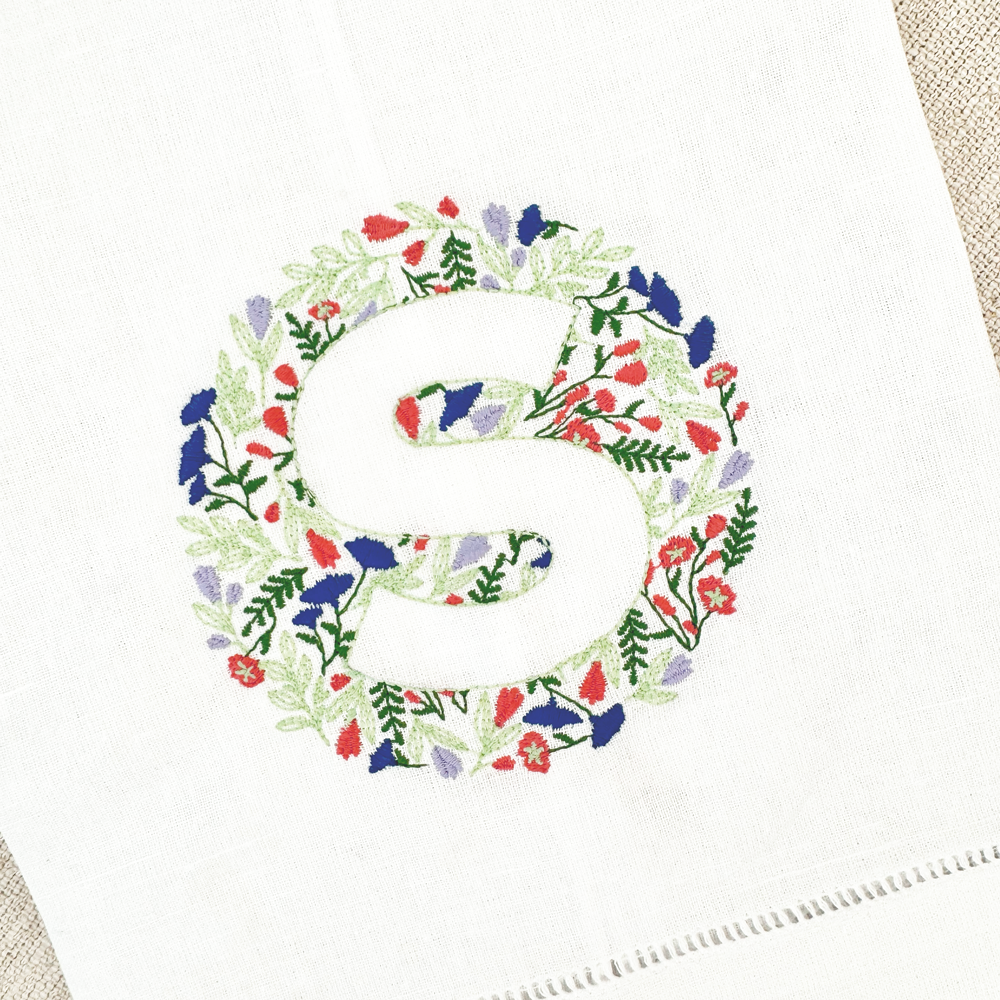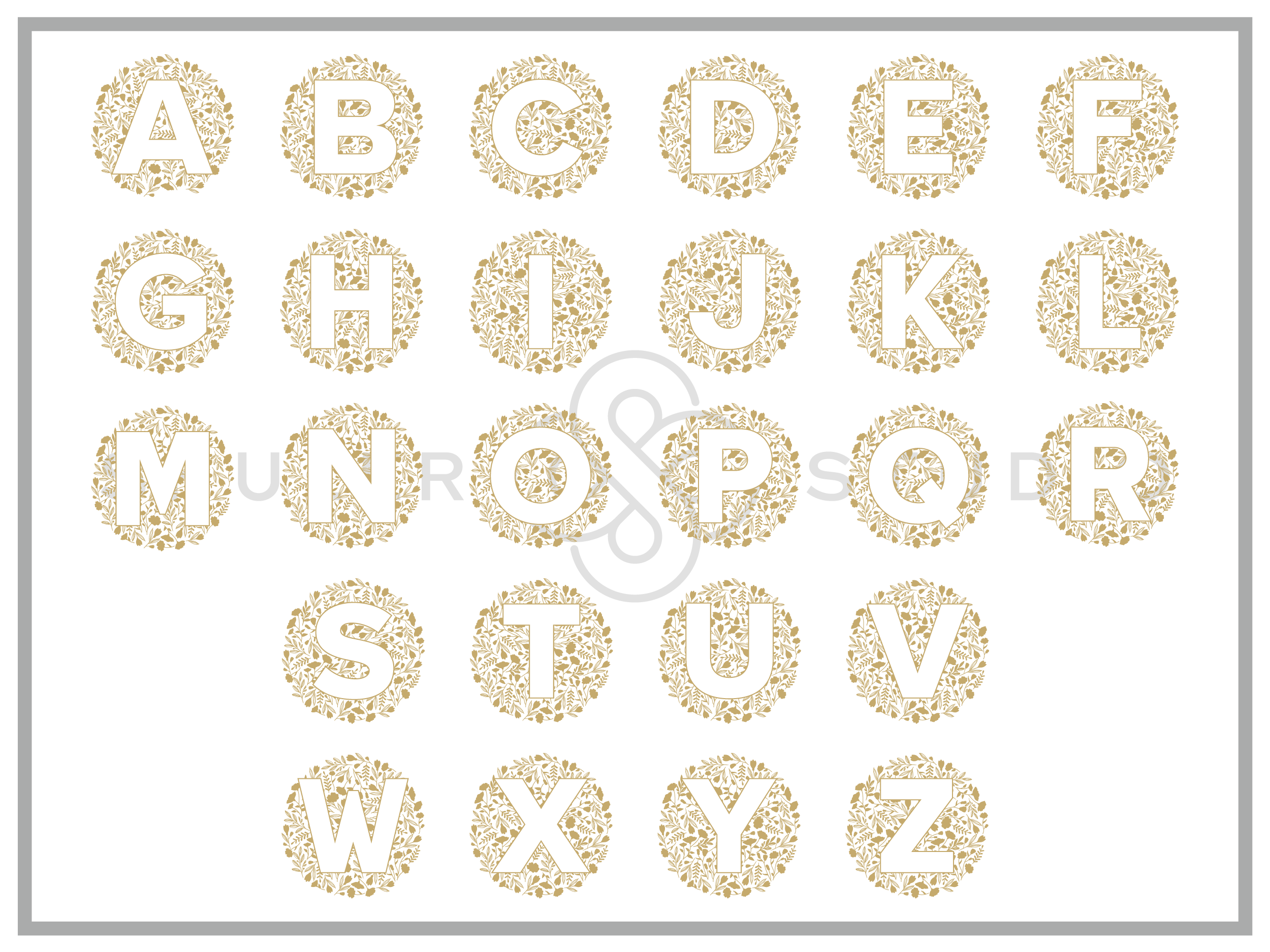
Single Floral Font for Embroidery
Our Single Floral Font is a collection of 26 letters in a beautiful floral circle background.
Perfect for embroidery, the careful attention in the digitization of each design makes personalization unique and beautiful!